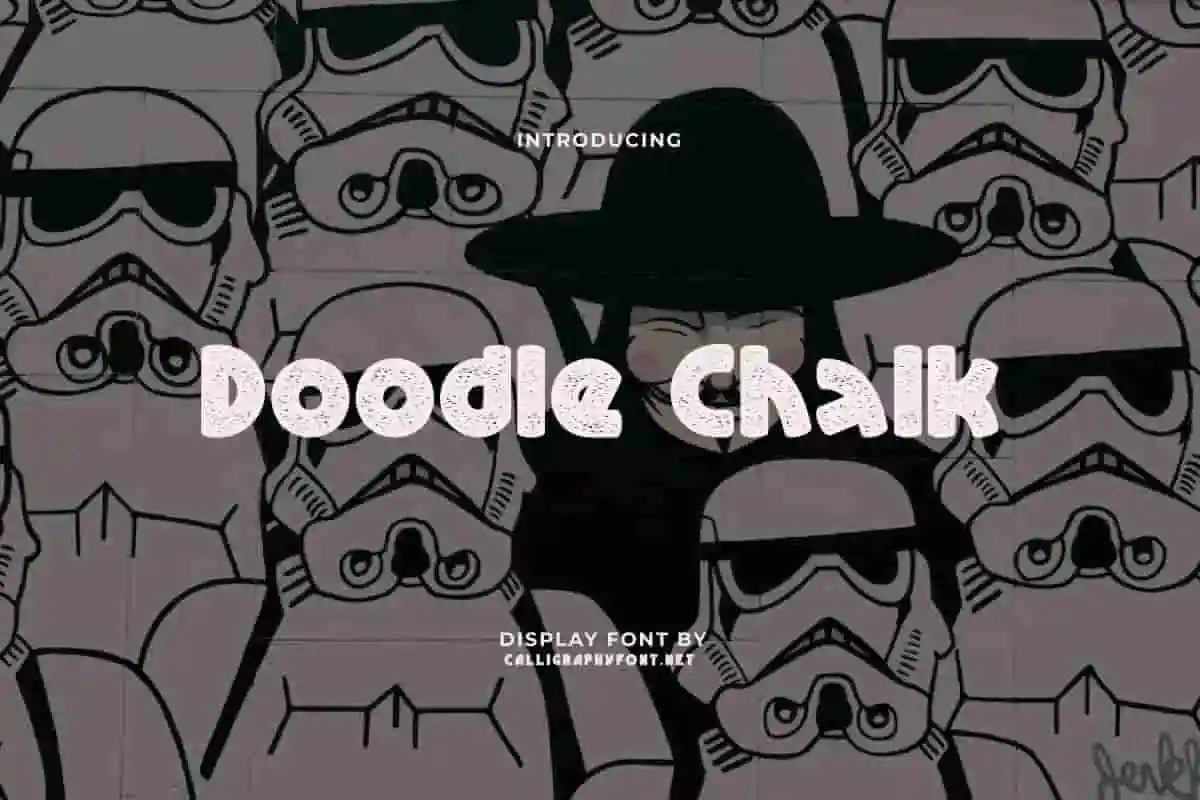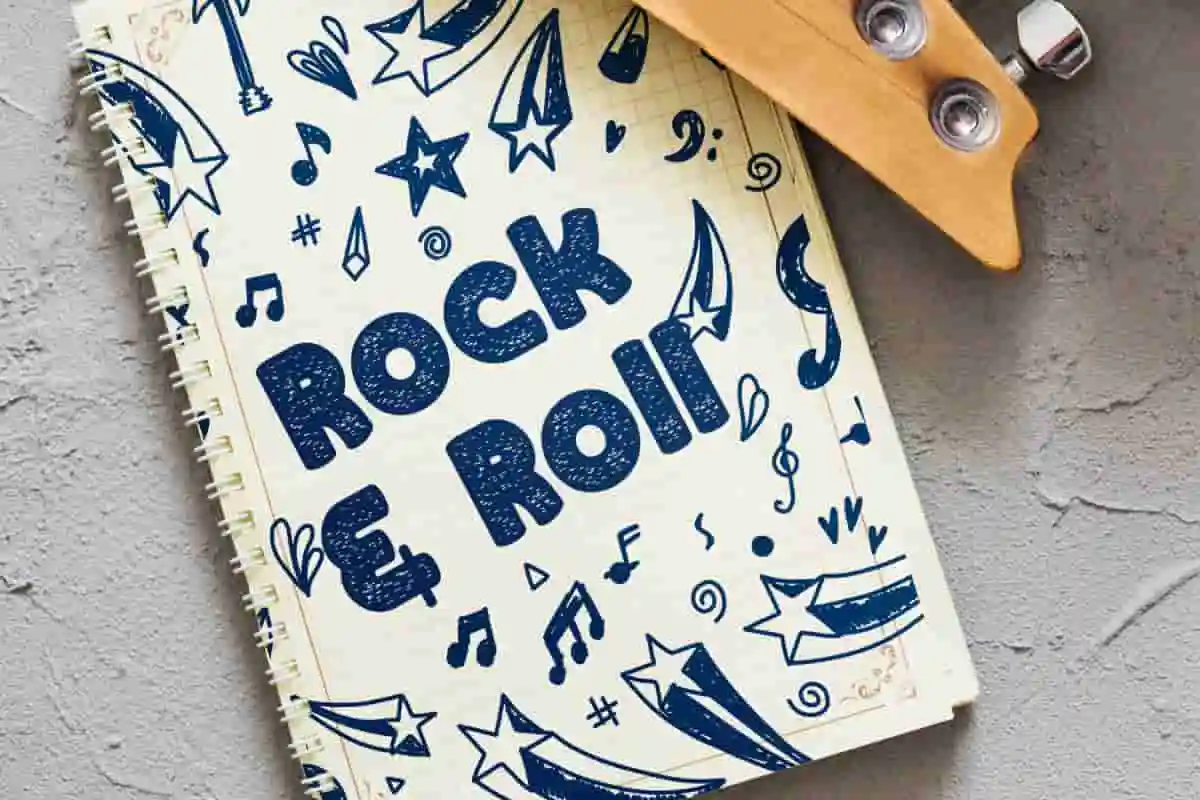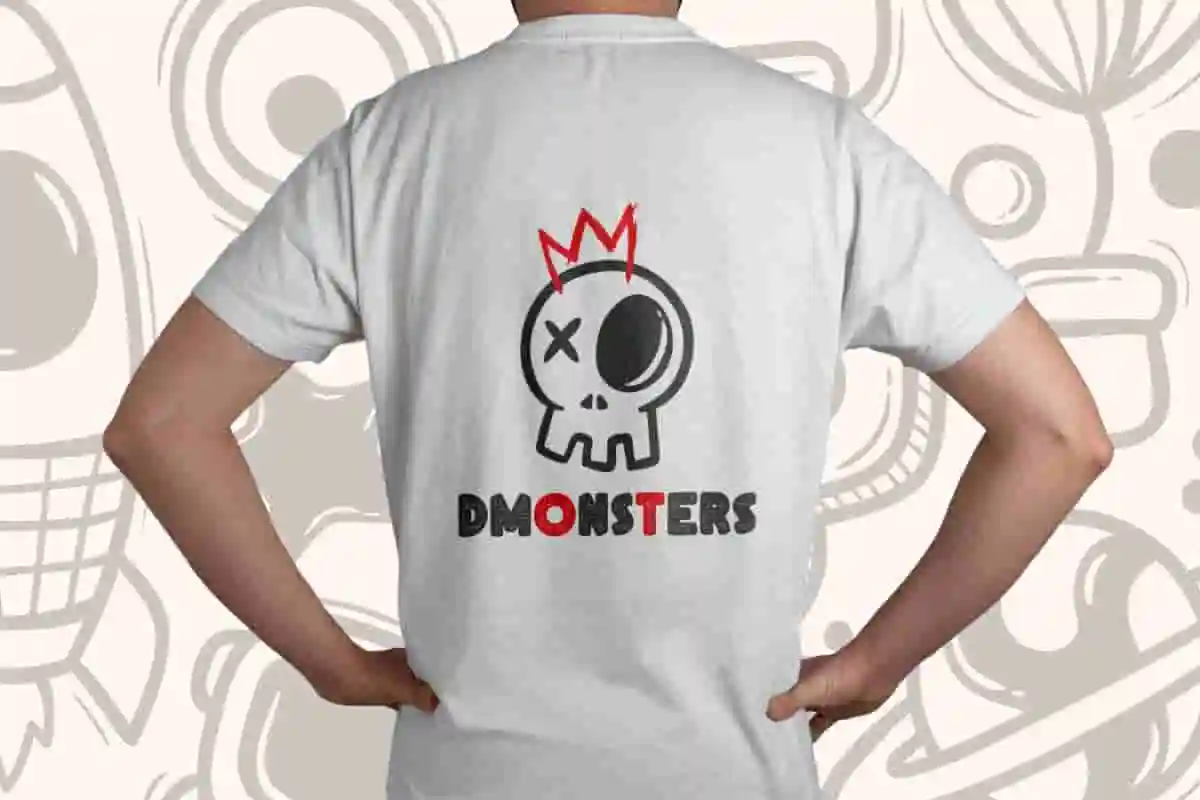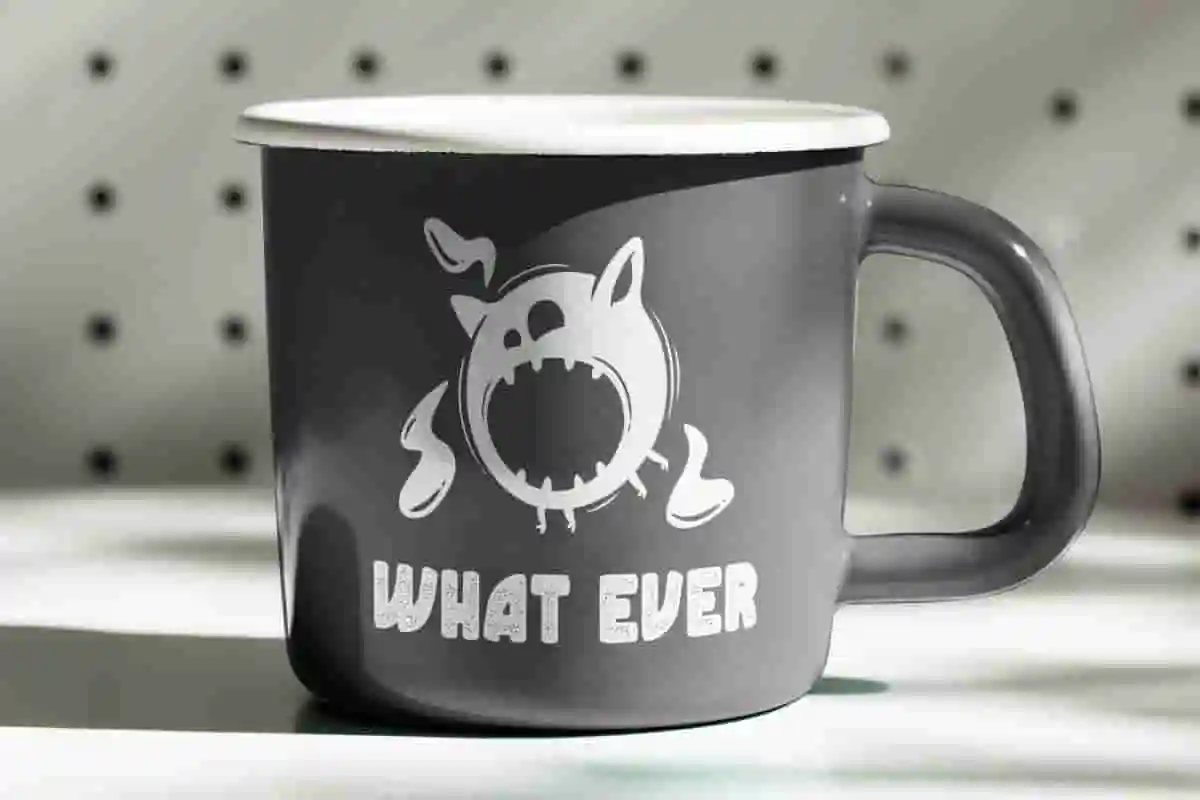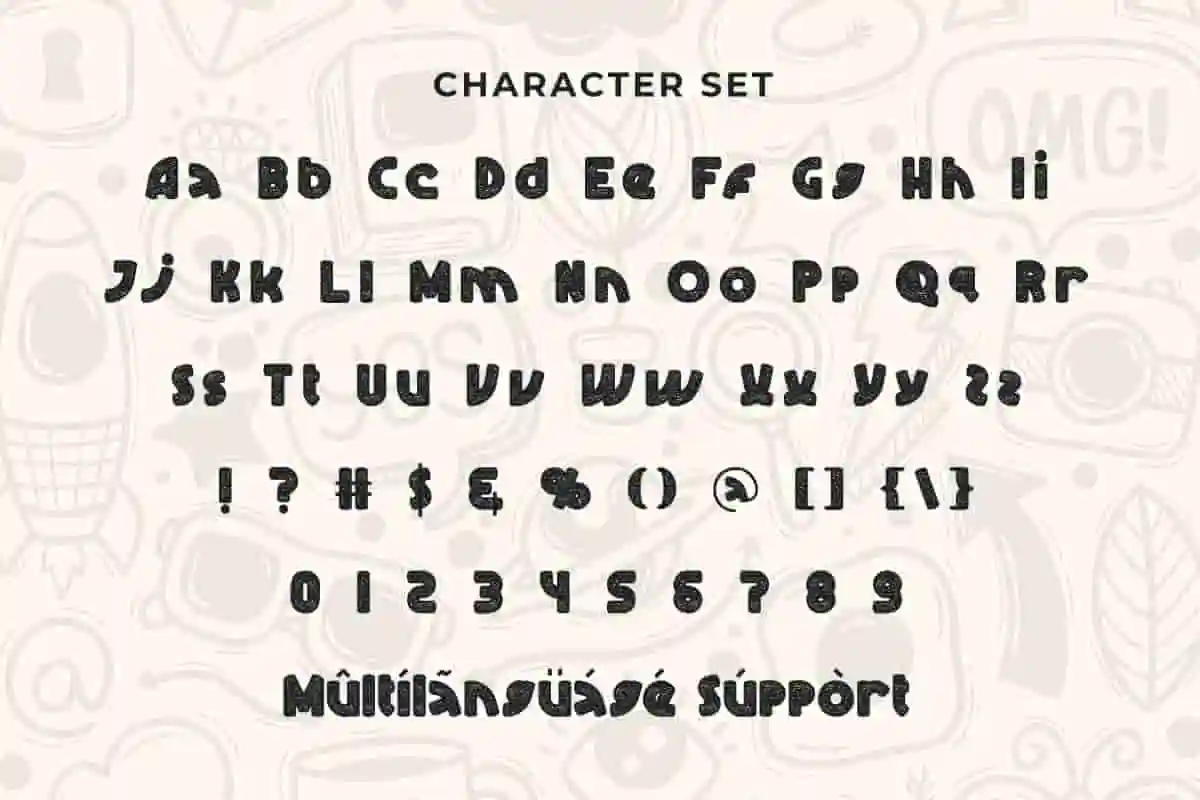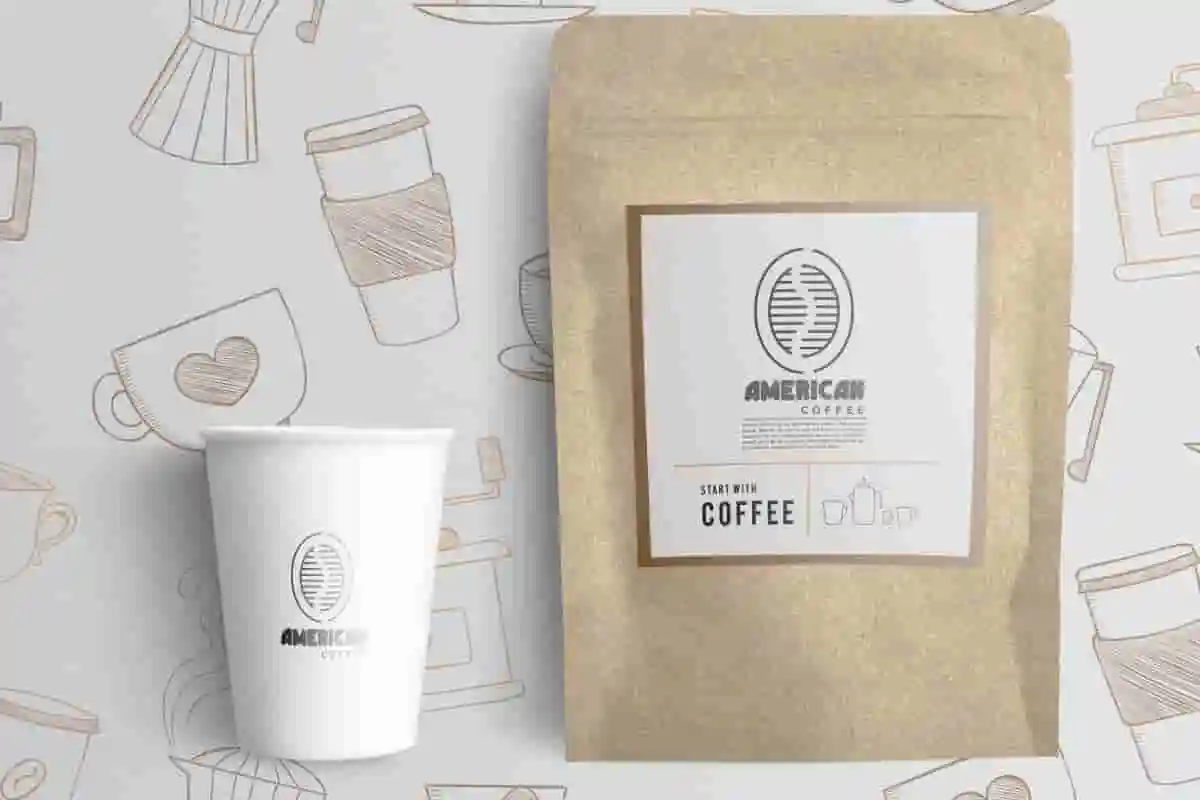
Doodle Chalk Display Font
Doodle Chalk Font is cute Chalk board display font with bubble letter shapes in “doodle” textured sketch style. It will pull as any titles, artisan, comic, social media, or just used to express words above the background.
Doodle Chalk Font is a cute Chalk board display font with bubble letter shapes in “doodle” textured sketch style. It’s so attractive that it would be perfect on any creative project idea, such as apps, billboard, blog, book, brochure, cafe & restaurant menu board, card, comic, cover, flyer, header, invitation, label, logos, mock up design, mug, packaging, phone case, poster, social media posts, stationery, sticker, t-shirt design, thank you card, title, website, and more!
Unleash your creativity with Doodle Chalk Display Font, a quirky and playful display font inspired by hand-drawn chalk doodles. Perfect for school projects, children’s books, party invitations, posters, and any design that needs a fun and informal vibe. With its rough edges and whimsical style, Doodle Chalk captures the charm of chalkboard art and brings a casual, friendly energy to your typography.
Bring your designs to life with Doodle Chalk Display Font, a charming and playful chalk-inspired display font that mimics authentic hand-drawn chalk doodles. Ideal for school projects, kids’ invitations, posters, and fun branding, this font adds a unique handmade touch to any project. With its rough, sketchy edges and lively characters, Doodle Chalk captures the essence of chalkboard art — casual, friendly, and full of personality.
Inject a burst of creativity into your projects with Doodle Chalk Display Font, a fun and playful chalk-inspired font that looks just like hand-drawn doodles on a chalkboard. Perfect for school projects, children’s books, party invitations, posters, and branding that needs a casual, approachable vibe.
- Handcrafted Chalk Style
- Great for Kids & Education
Doodle Chalk Font is a trendy display font that works well presented as chalky letters in a doodle style, this makes it great for children’s designs or in any industry full of fun, such as accessories, advertisement, animation, art gallery, artisan café, clothing, content creator, craftsman, event organizer, exhibition, glassware, graphic design, handicraft, homeware, interior design, movie, music, printing, publishing, restaurant, vlogger, writer, and much more.
Doodle Chalk Font comes with a full set of Basic Uppercase and Lowercase Characters, Numbers, various Punctuation and Symbols. You can feel the fun vibe as you arrange the letters, whether it’s mixing and matching until it’s just right. This font is also equipped with multilingual support that is ready to be used on both Windows and Mac machines with a simple installation. It is tested to work properly in Adobe Applications (Illustrator, Adobe InDesign, Adobe Photoshop) CorelDraw, and others. Each glyph is PUA encoded which means you can easily access all the characters.